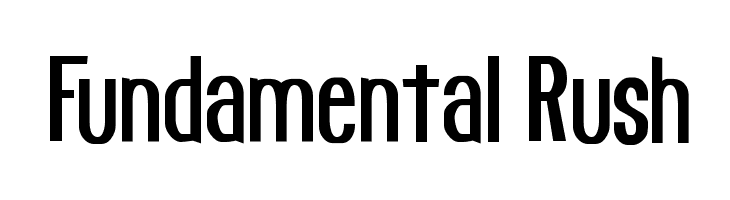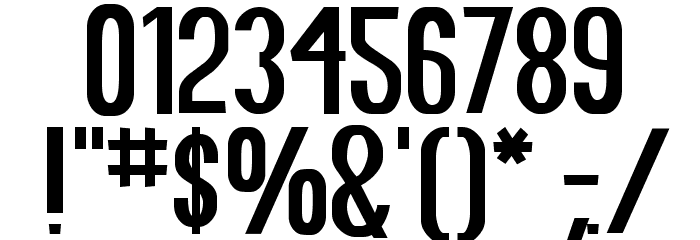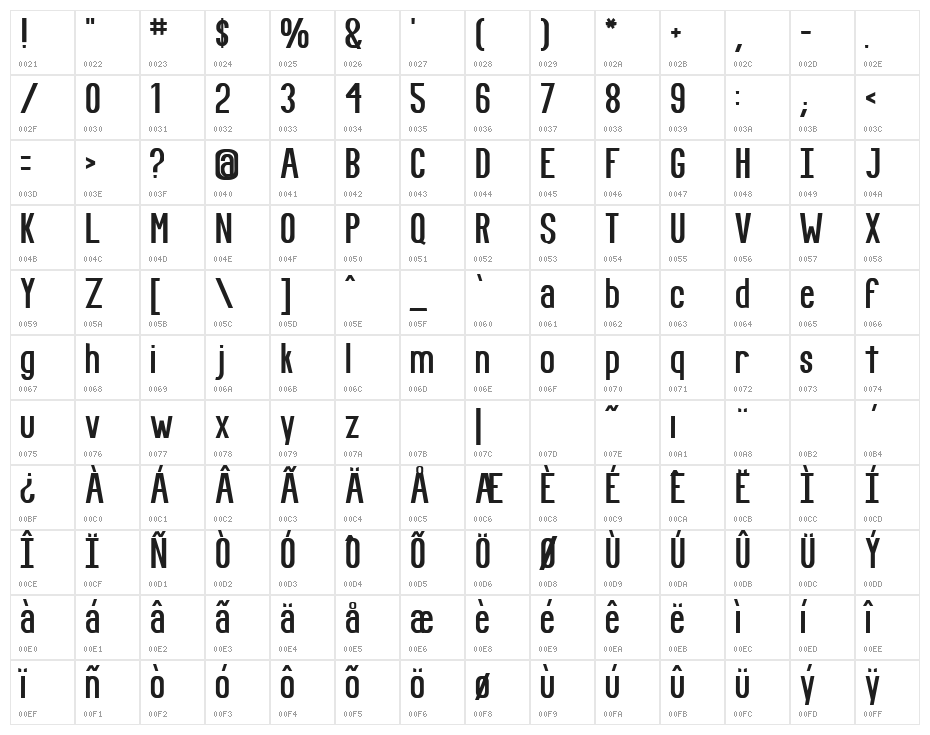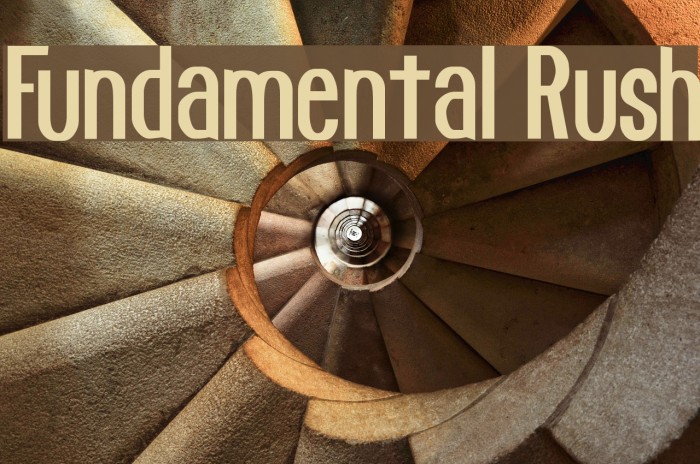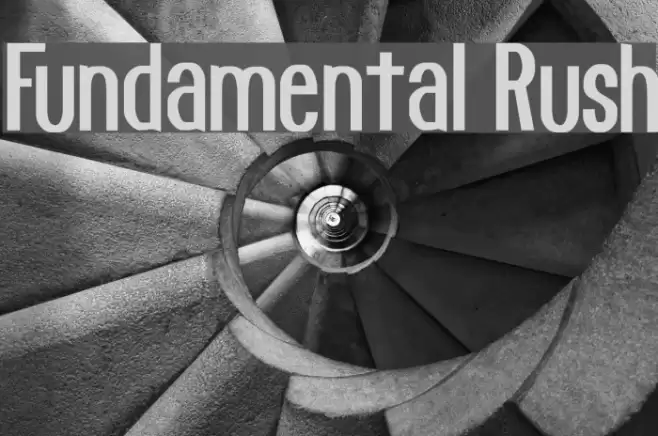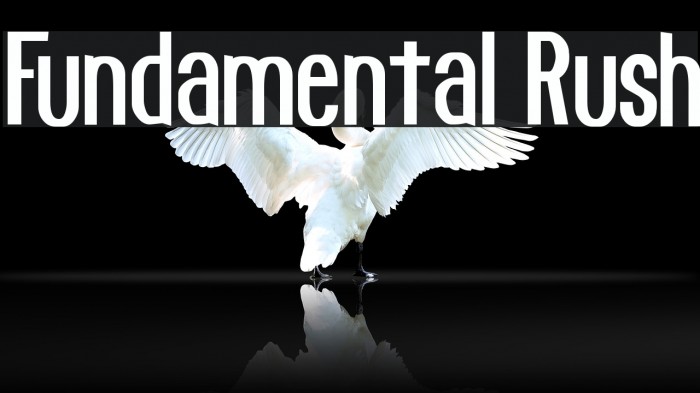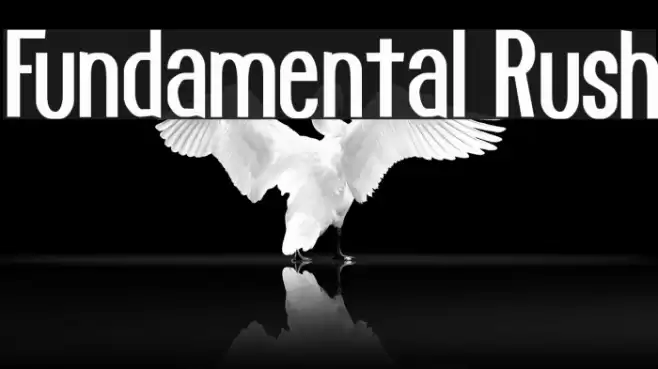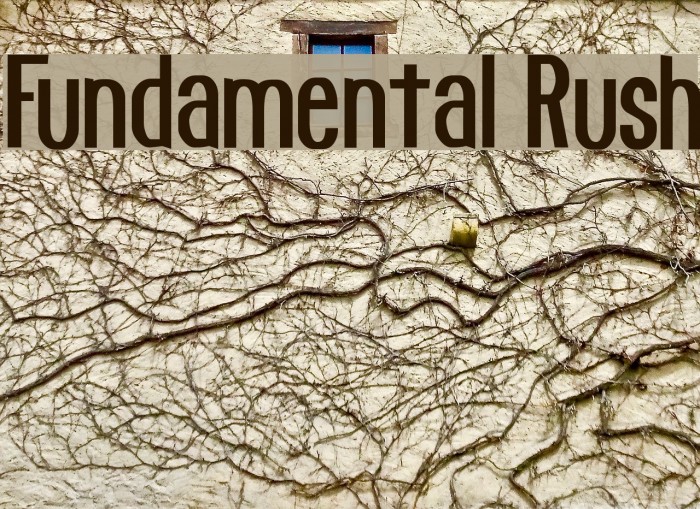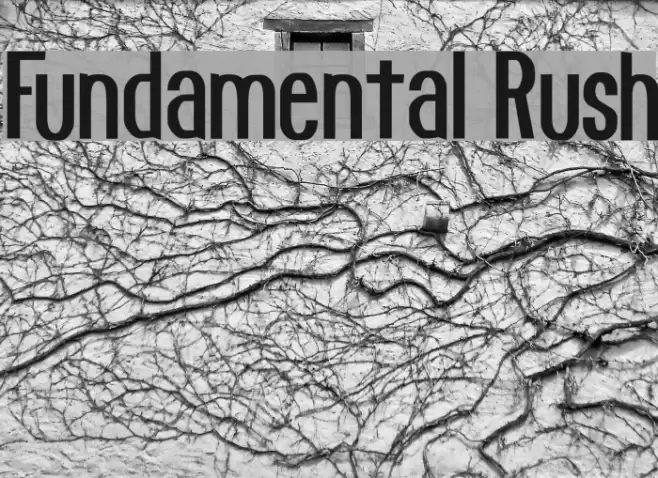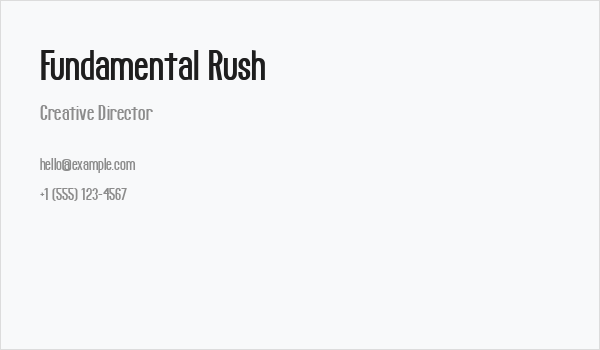
Fundamental Rush Font
Fundamental Rush Description
This font features a bold and assertive design with tall, narrow characters that convey a sense of urgency and modernity. The uppercase letters are particularly striking, with clean lines and a consistent stroke width that enhances readability. The lowercase letters maintain the same boldness, ensuring uniformity across text. Numbers and special characters are crafted with the same attention to detail, making this font versatile for various applications. Its strong presence makes it ideal for grabbing attention, while its clarity ensures that the message is easily understood.
| Proposed Projects | Ideal for headlines, posters, branding, and advertising where a strong, modern impact is needed. |